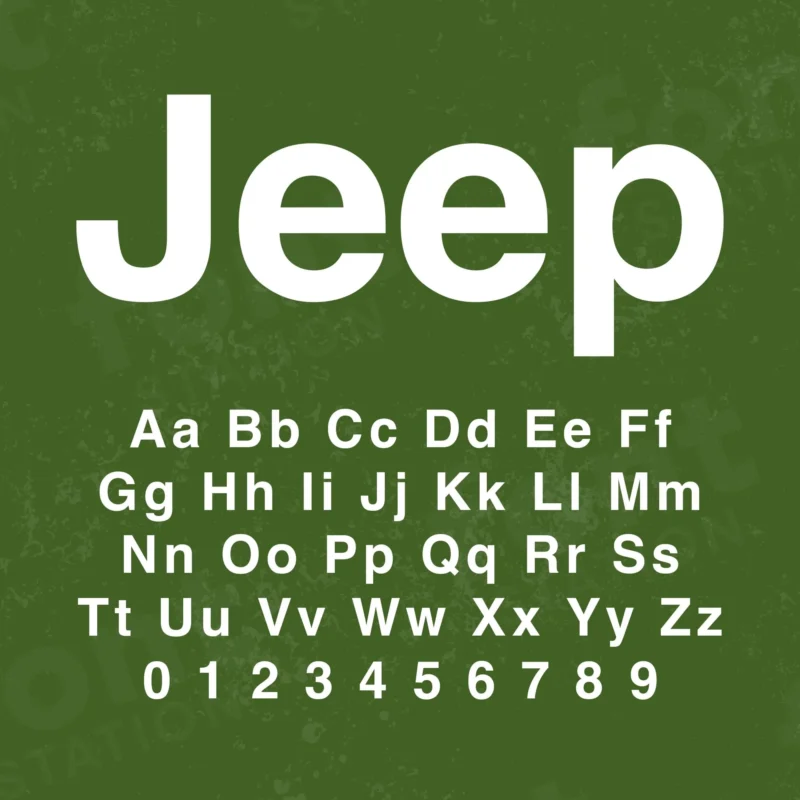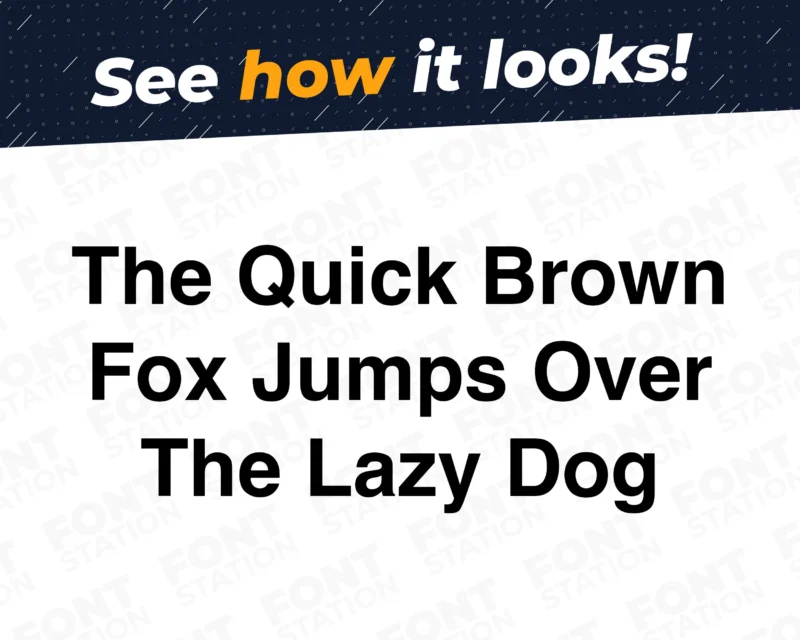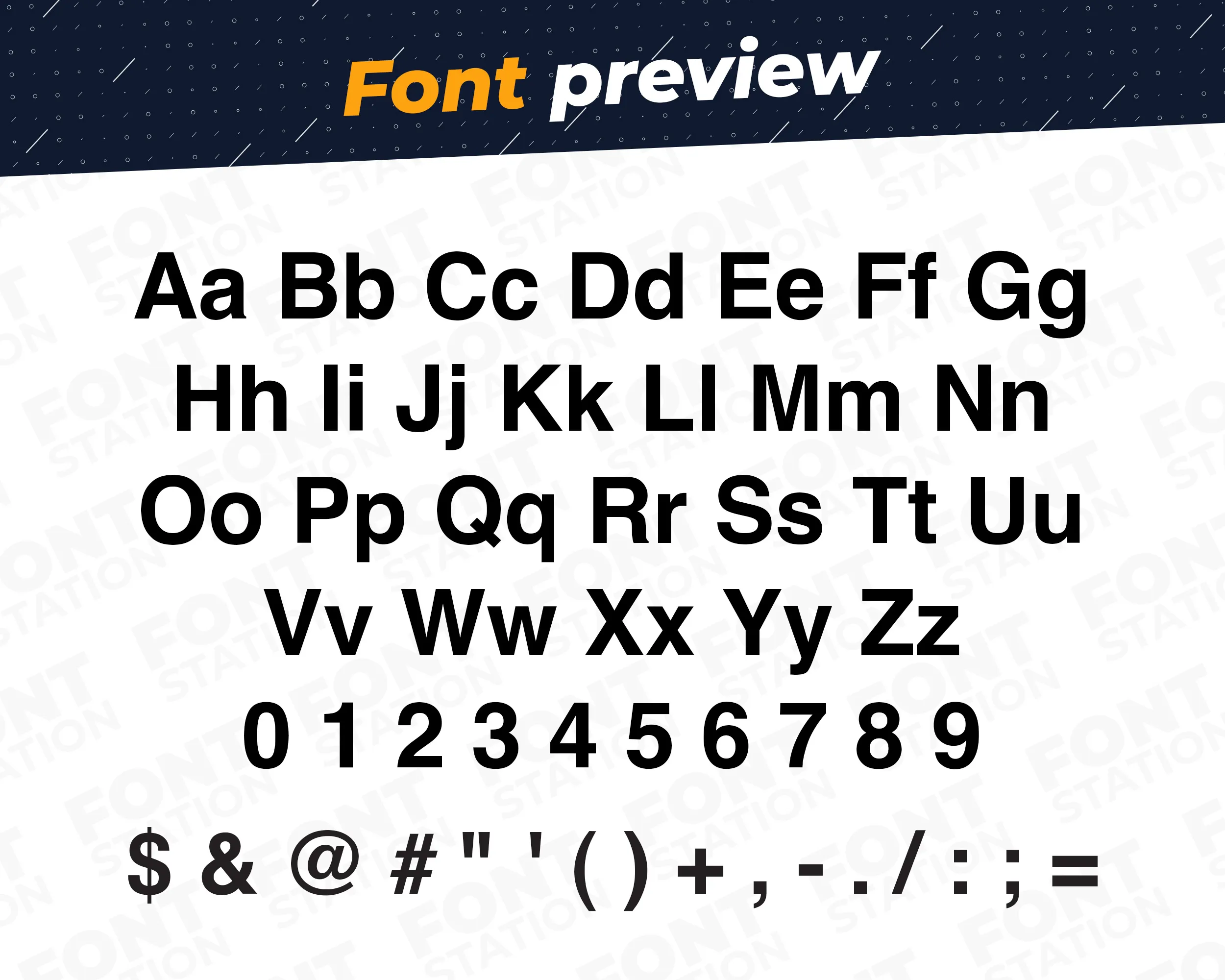
Our Deep Mud typeface, inspired from Jeep font
Grab your computer, tablet or other device and start creating right now with our Jeep font letters! Our Deep Mud typography is inspired from Jeep 4×4 adventure car font, making it ideal for various digital creations (logo, word…), sublimation, cake toppers, stickers, event decorations, and more.